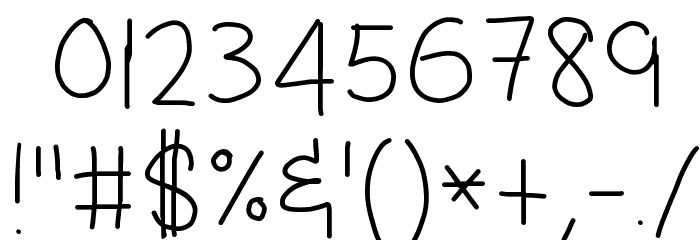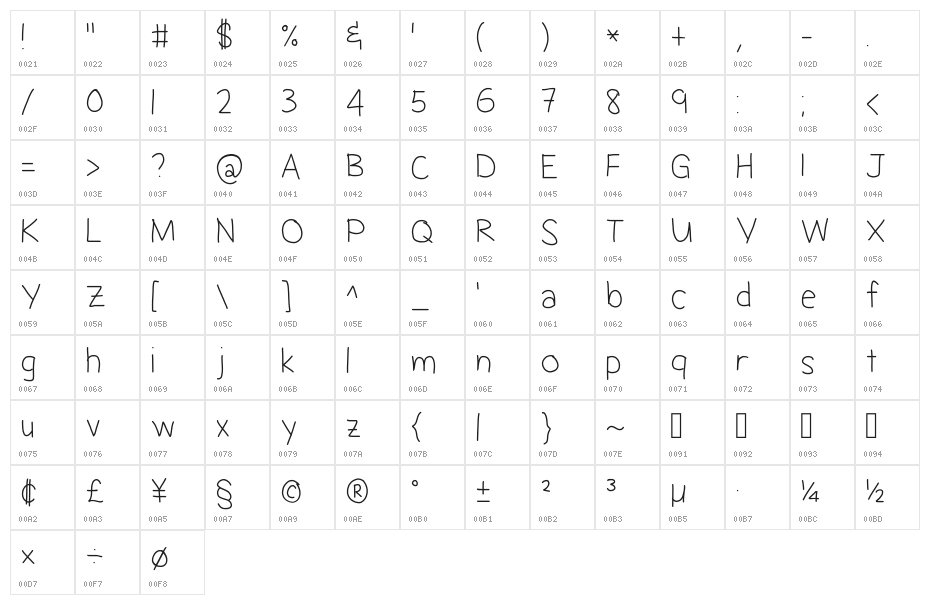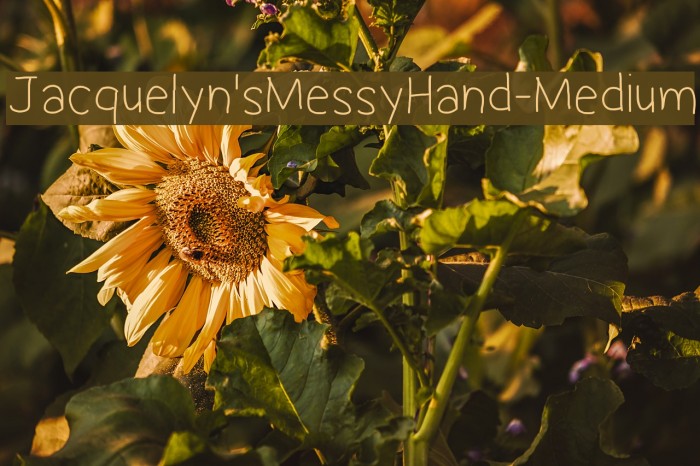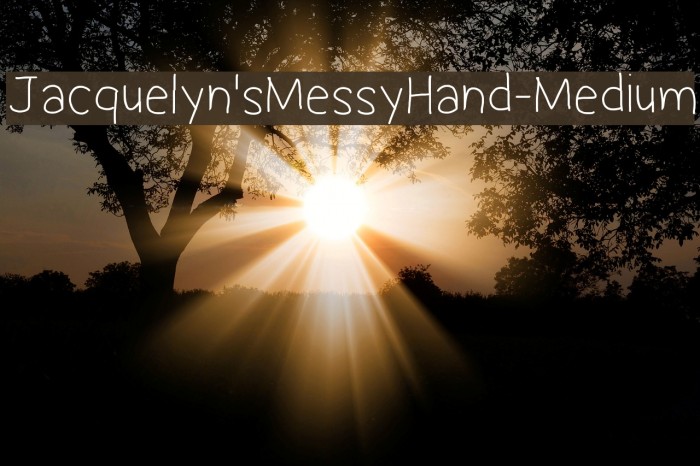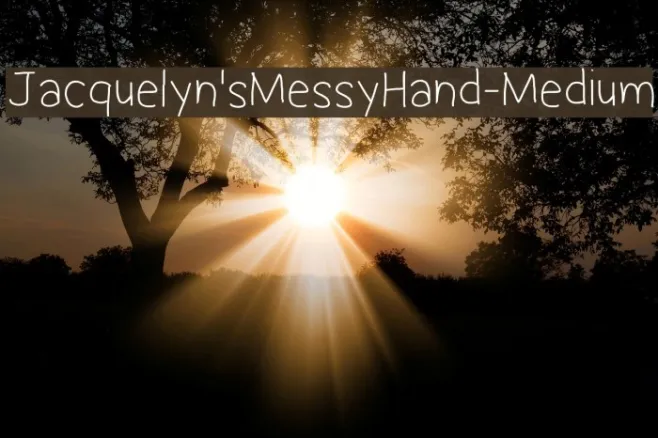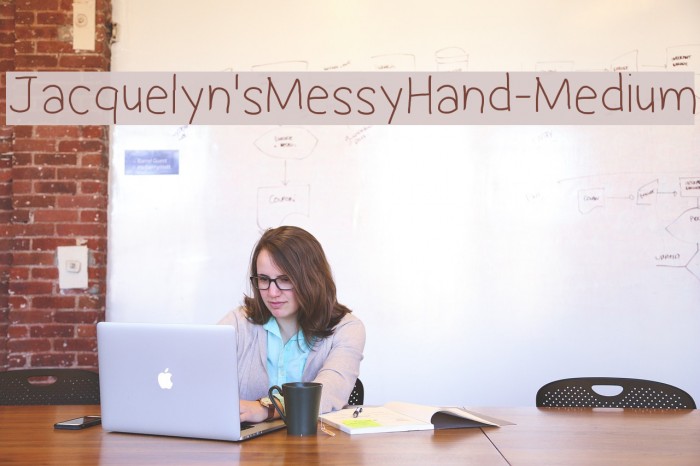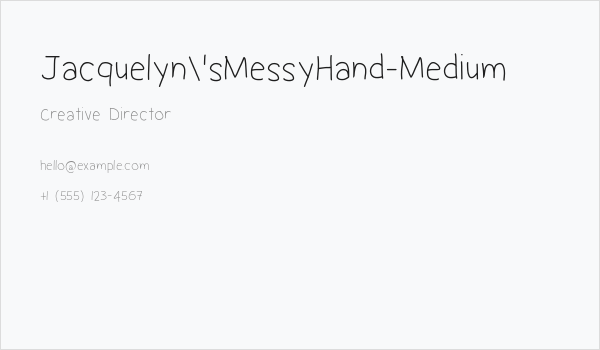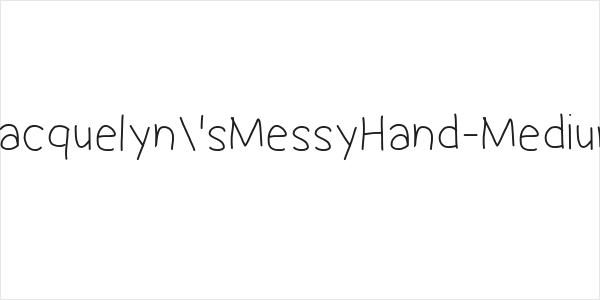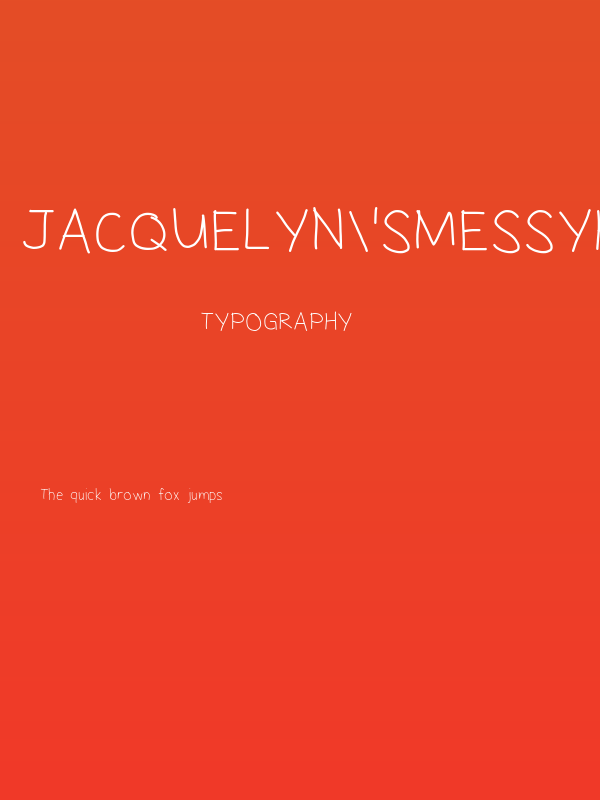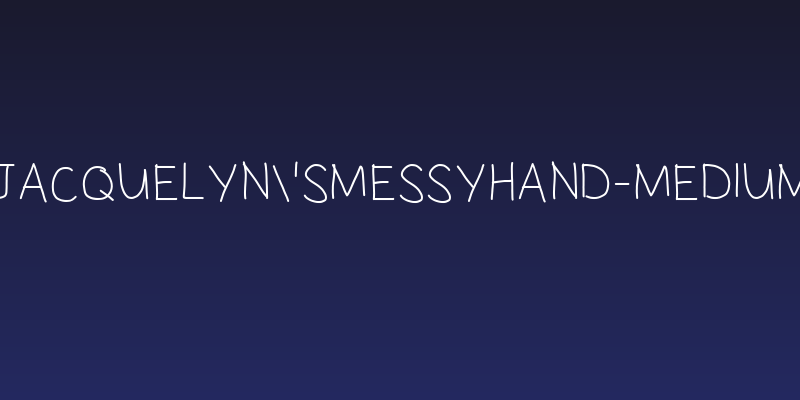
Jacquelyn'sMessyHand-Medium Font
Jacquelyn'sMessyHand-Medium Description
This font exudes a playful and casual handwritten style, characterized by its irregular and slightly messy strokes that mimic the natural flow of handwriting. The letters are unevenly spaced, adding to the informal and relaxed aesthetic. The uppercase and lowercase letters maintain a consistent style, with rounded edges and a slight tilt, giving the impression of a personal touch. The numerals and special characters follow the same whimsical design, making the font suitable for projects that require a friendly and approachable look.
| Proposed Projects | Ideal for greeting cards, children's books, casual invitations, and personal blogs. |